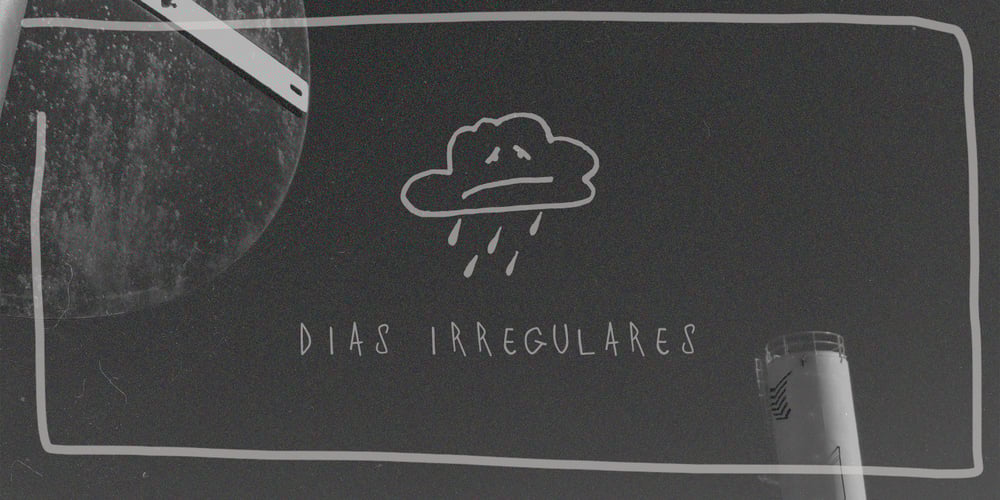
Dias Irregulares Font Family was designed by Jair Martins and published by Jrmuitos. Dias Irregulares contains 1 styles and family package options. Dias Irregulares is a font inspired by ignorant tattoo style. Contains 2 alternative characters for each letter and 4 cute illustrations. It’s perfect for artistic publications, clothing and many other things. All made by hand, such as my tattoo work.